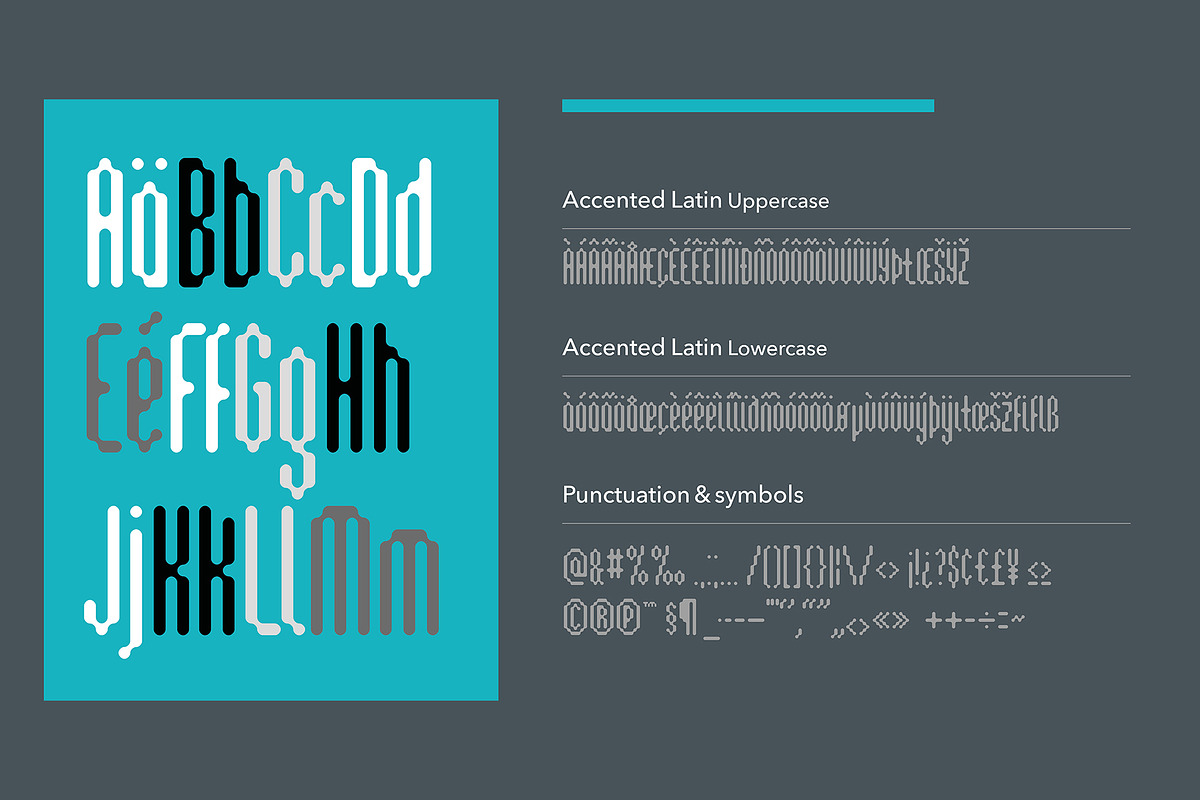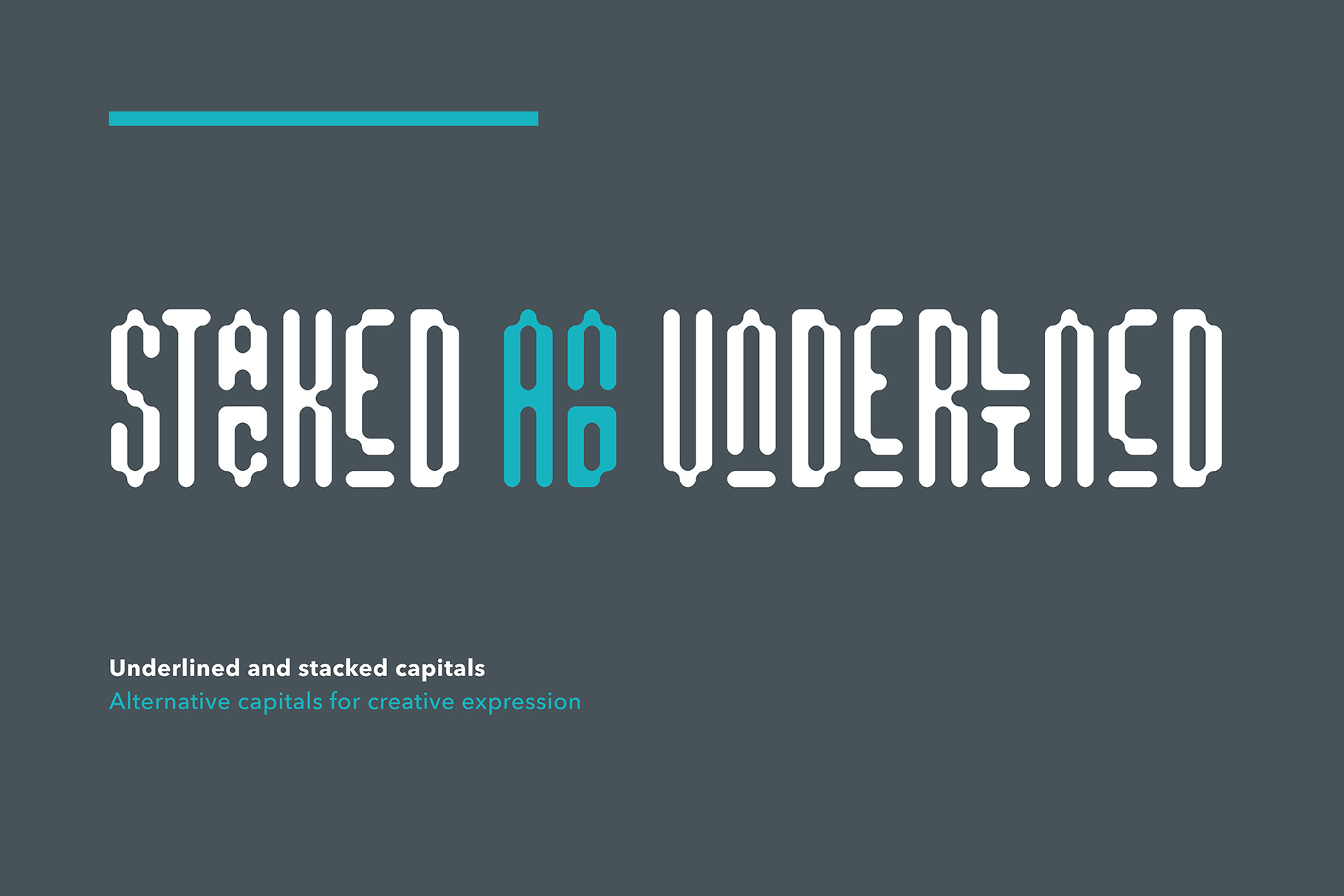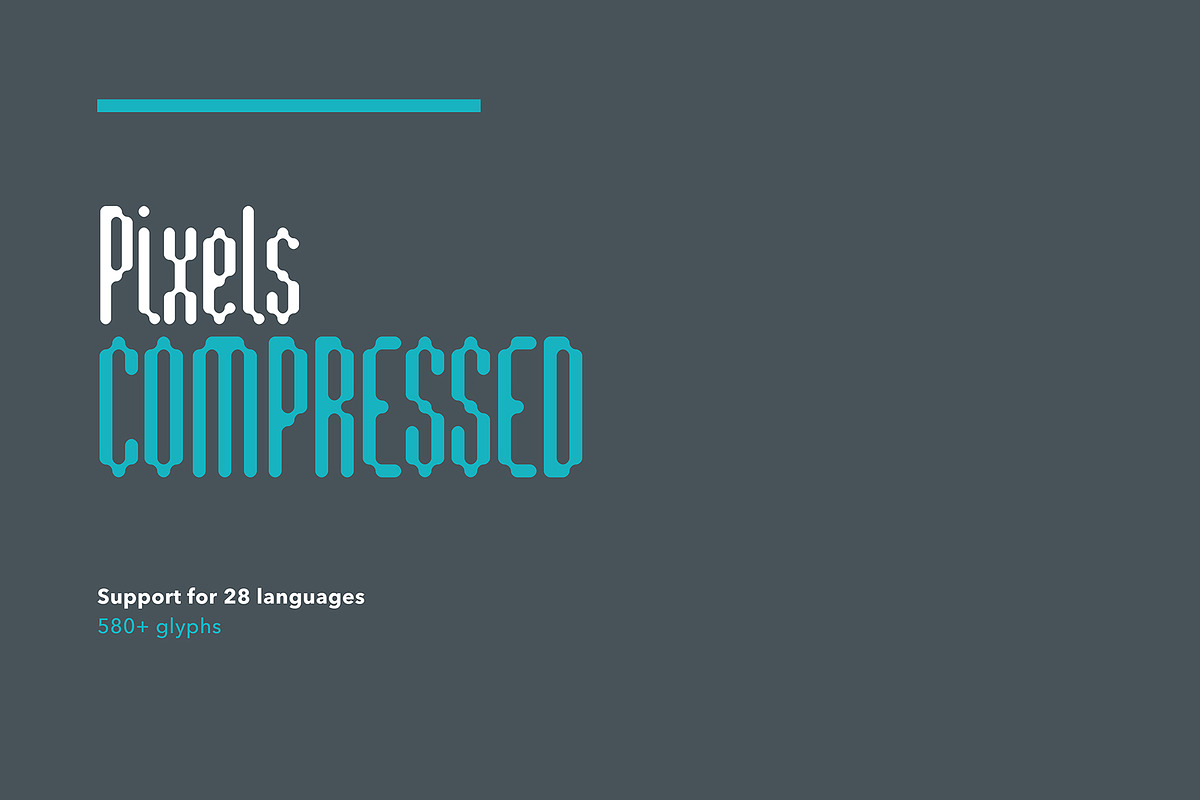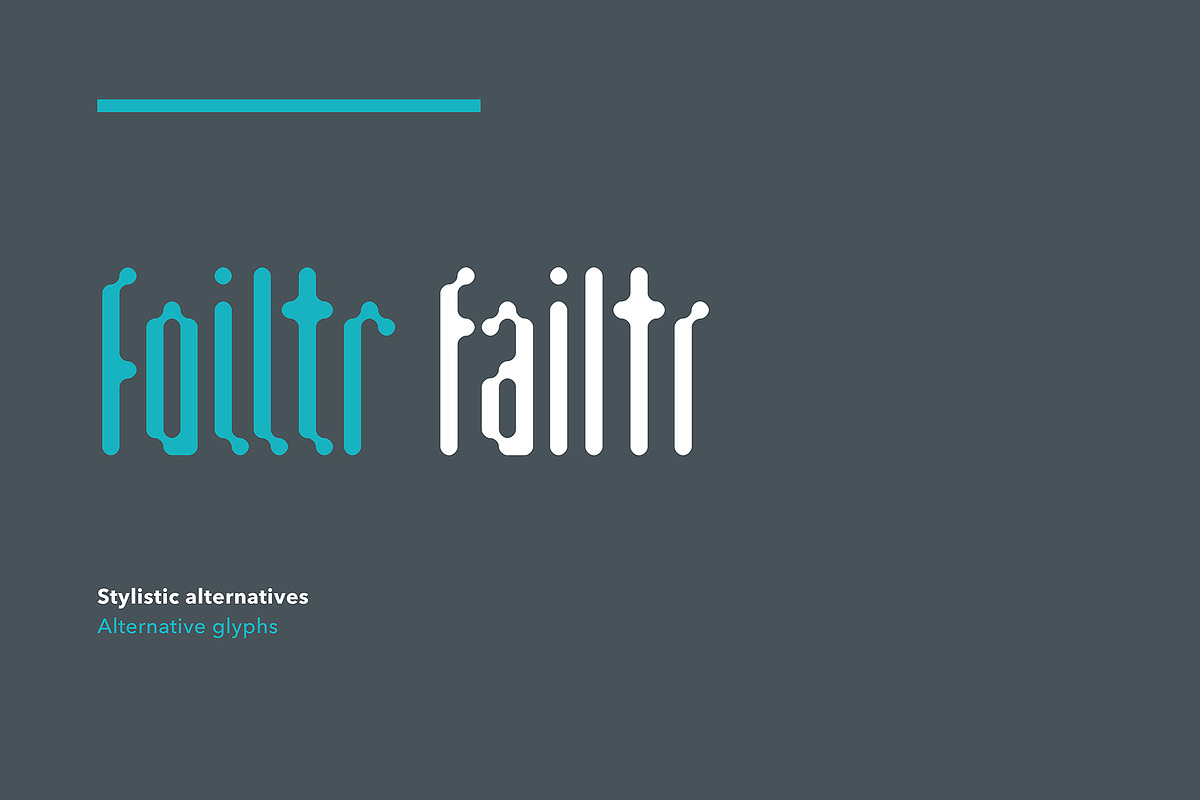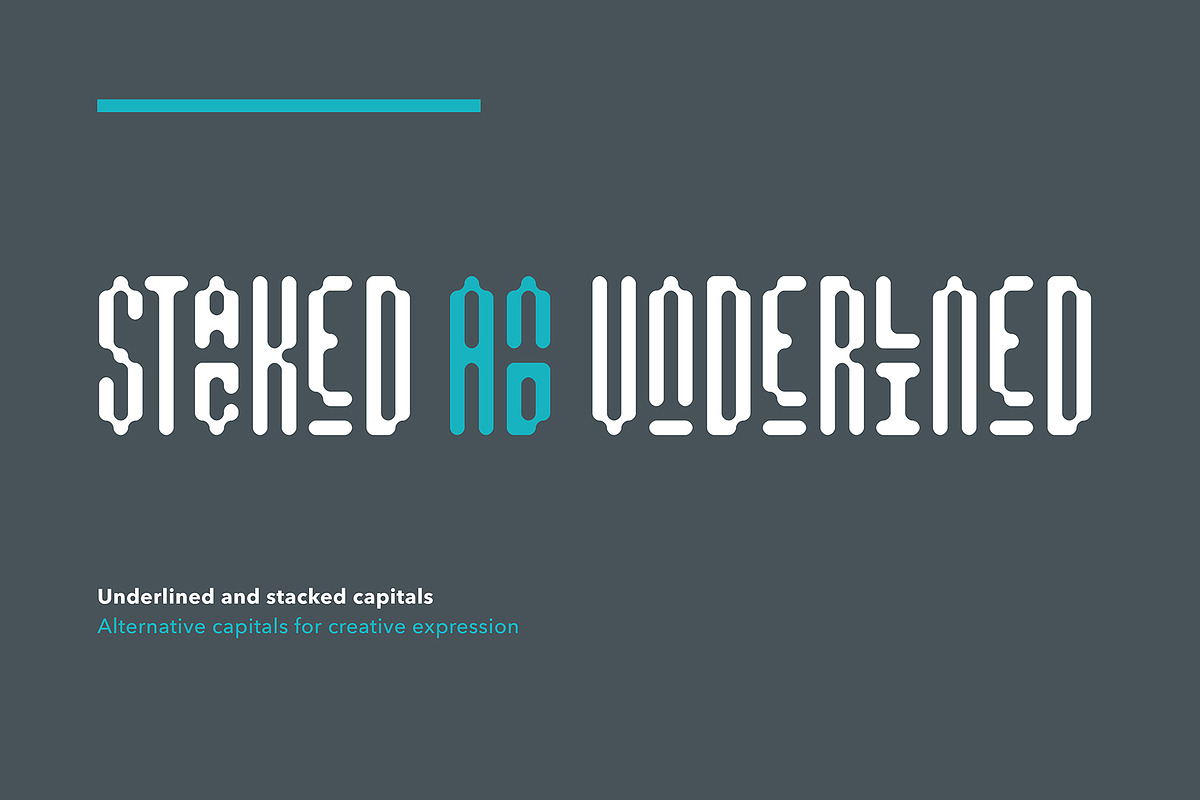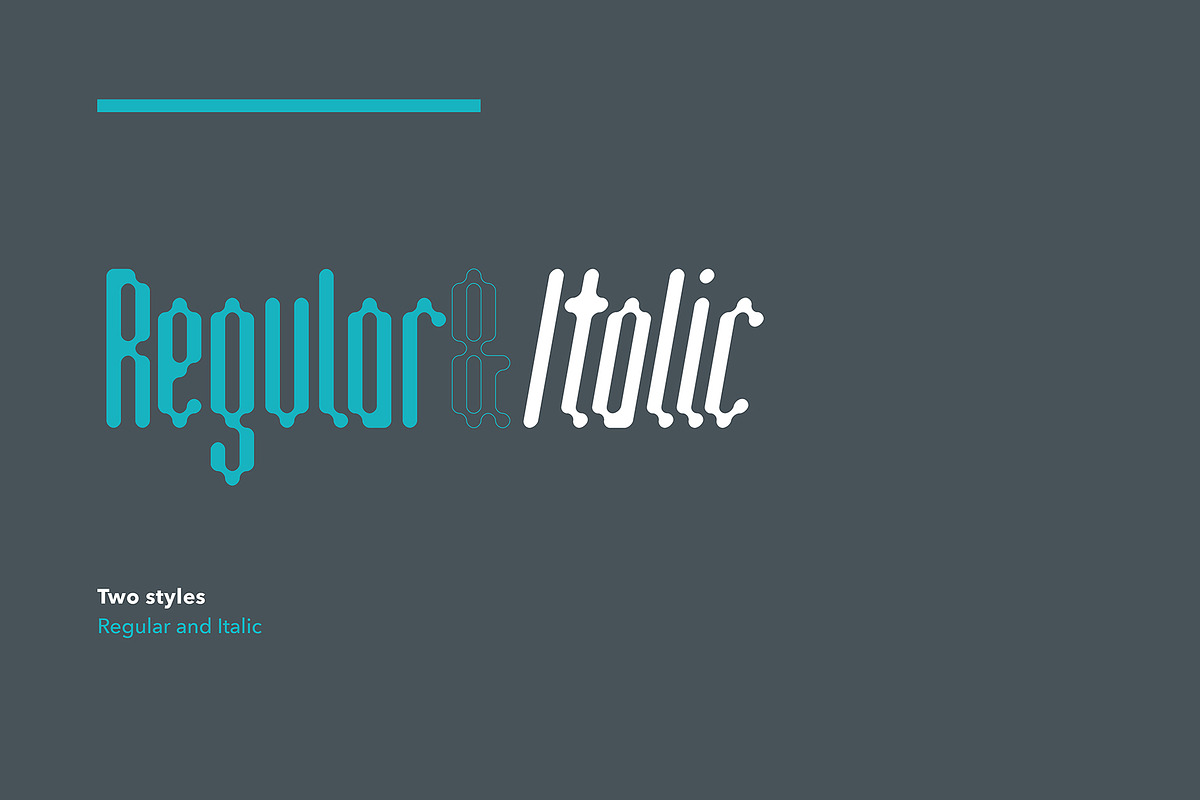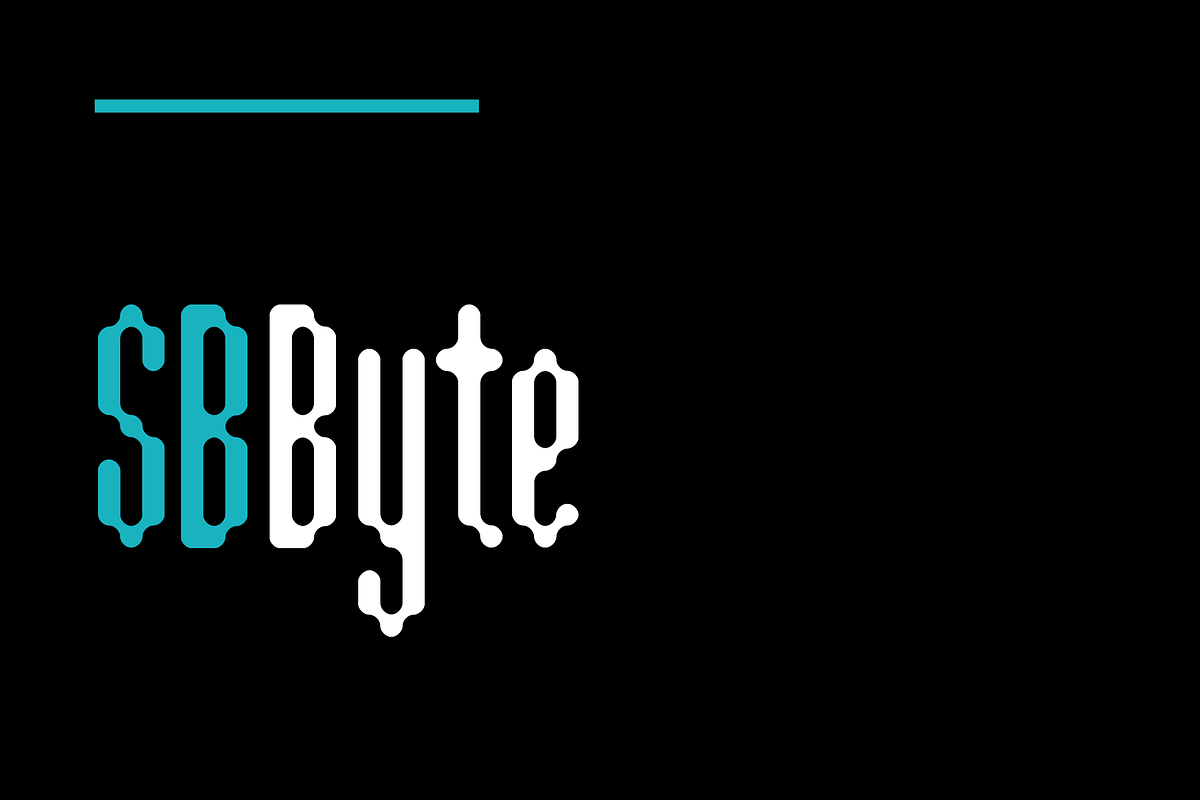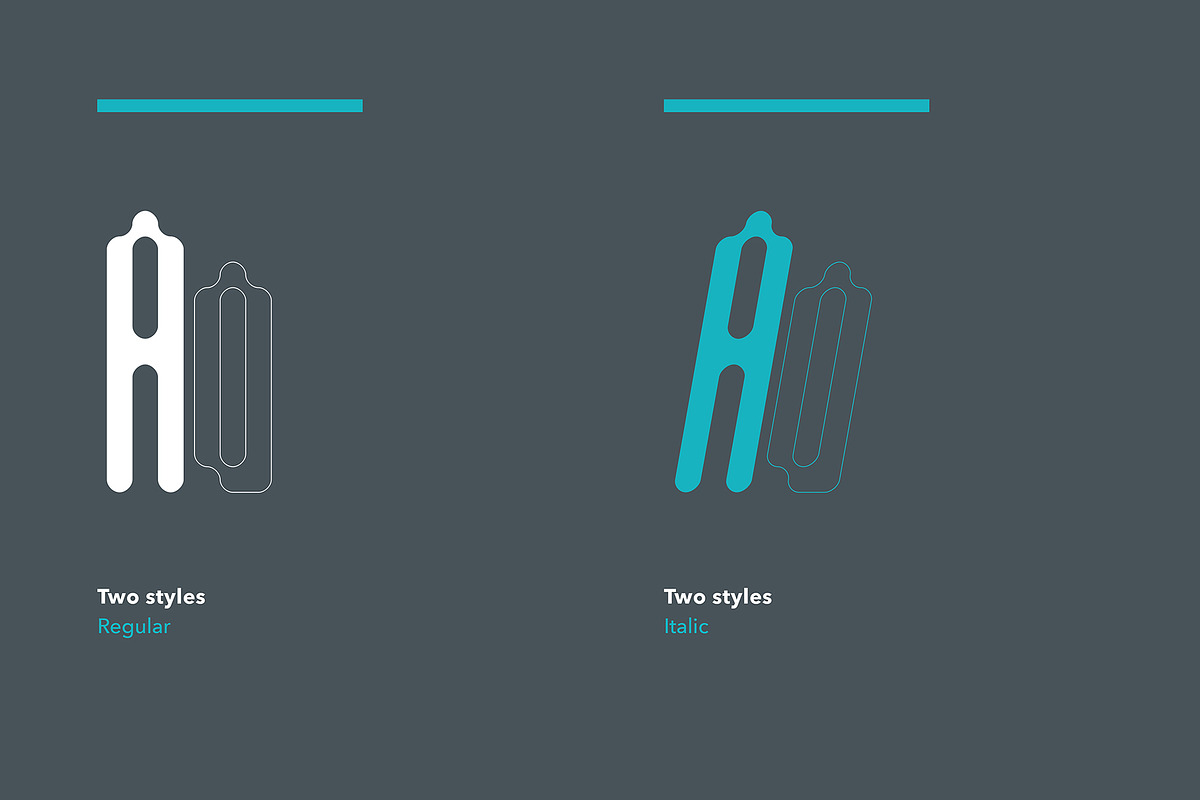
Byte - Rounded pixel font
- Each font contains 582 glyphs.
- Features alternative capitals designed for stacking, including many alternatives.
- Supports 37 languages.
SB Byte is the result of experiments in an early version of Photoshop, inspired by Rudy VanderLans and Zuzanna Licko’s experiments in digital letterforms, as published in Emigre Magazine. The process involved drawing the glyphs pixel by pixel at a low resolution, increasing the resolution and applying the Gaussian Blur filter multiple times. Each time the Brightness and Contrast was adjusted to remove the blur and create a sharper, more defined edge. The resulting glyphs were redrawn in Fontographer, and a slanted oblique version was also created. The letterforms are highly condensed, at only three pixels wide, and feature some elements reminiscent of narrow blackletter type, albeit in a digital, bitmap style. Although the way it was created was different, SB Byte can be classified as a rounded pixelfont, and is suited to themes such as retro computing and electronic communication.